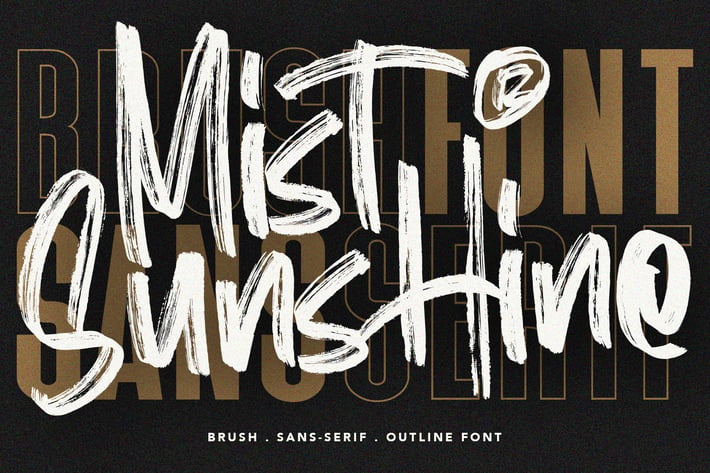
Mist Sunshine Font Bundle
Give your designs an authentic brush handcrafted feel. "Mist Sunshine" is perfectly suited to signature, stationery, logo, typography quotes, magazine or book cover, website header, flyer, clothing, branding, packaging design and more.